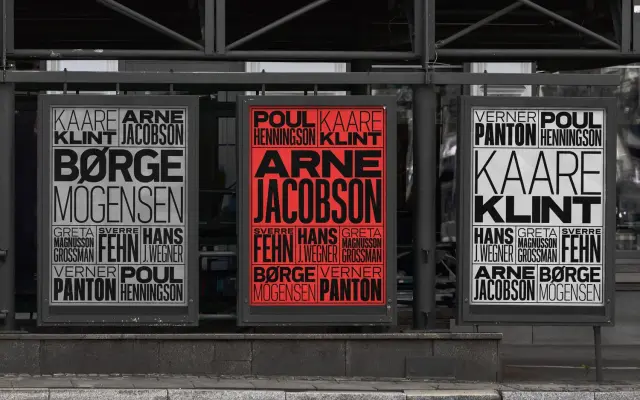
Lintel Next
The Northern Block · Tasos Varipatis · 2012
An evolution of The Northern Block's 2012 Lintel, redrawn across six widths with Greek and Vietnamese support added under Tasos Varipatis.
Originally released in 2012, this geometric sans has been substantially expanded and redrawn, with five new widths running from Compressed to Extended now sitting alongside the standard cut. The hand-drawn approach of Tasos Varipatis softens the geometric rigidity common to the genre, introducing pill-shaped curves that keep the letterforms approachable without losing their structural precision. Coverage extends to Western, Southern and Central European Latin, Cyrillic, Greek and Vietnamese, across a 1222-character set with broad OpenType feature support.
Explicitly described as a geometric sans-serif inspired by architectural principles, featuring pill-shaped curves and carefully proportioned letterforms that balance structure with a flowing aesthetic.